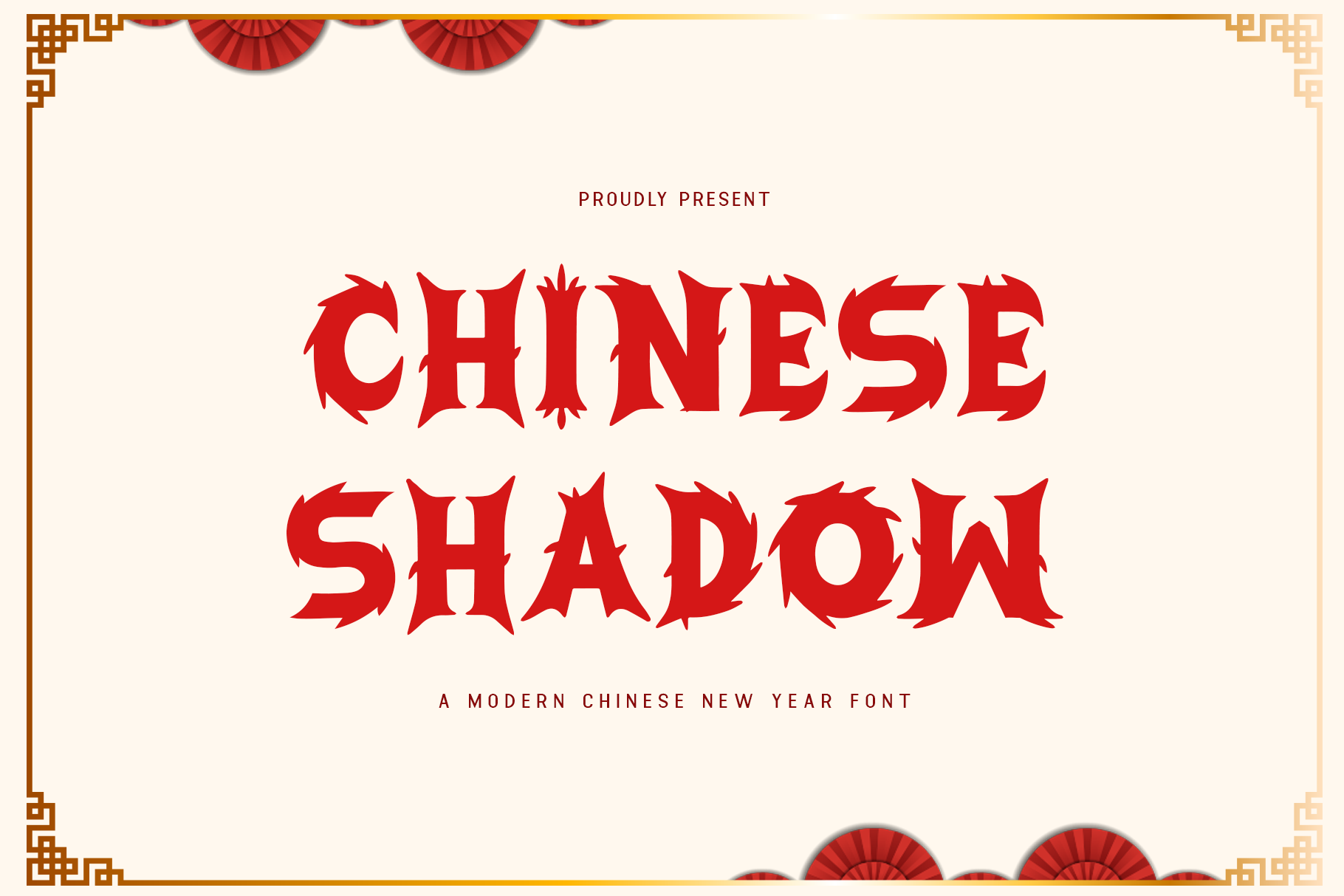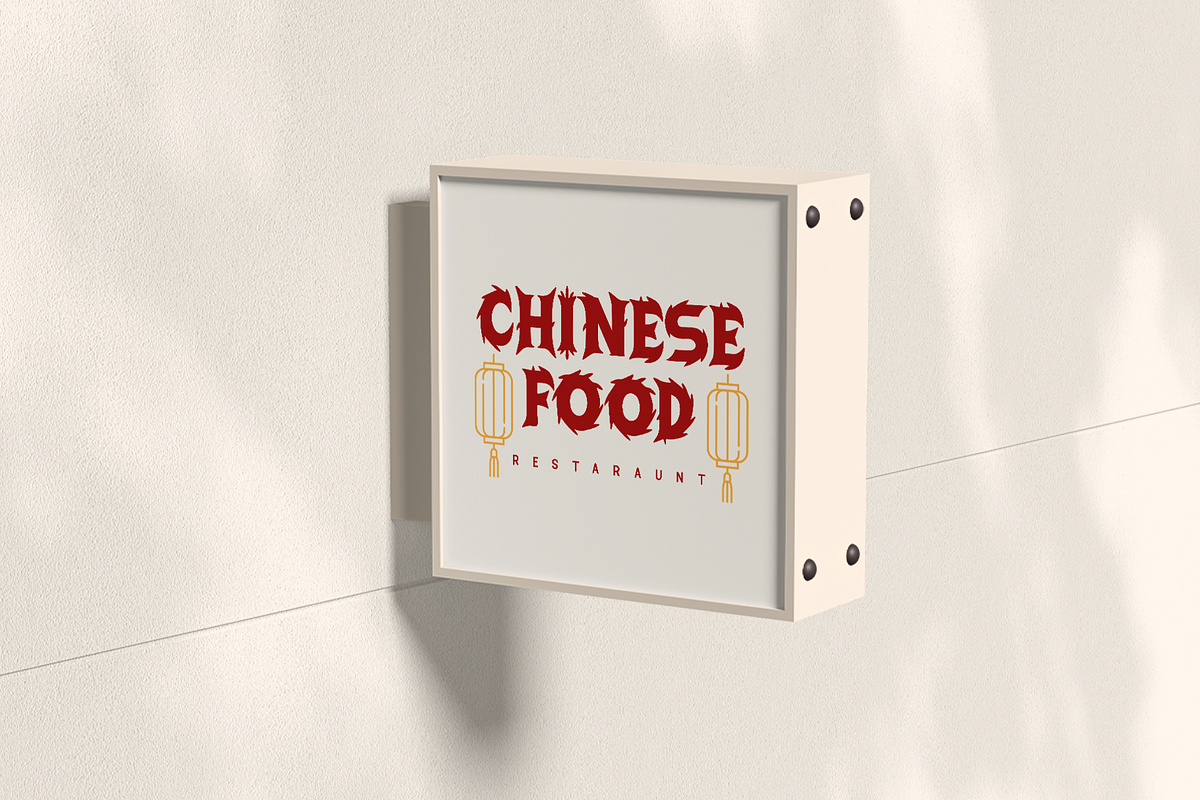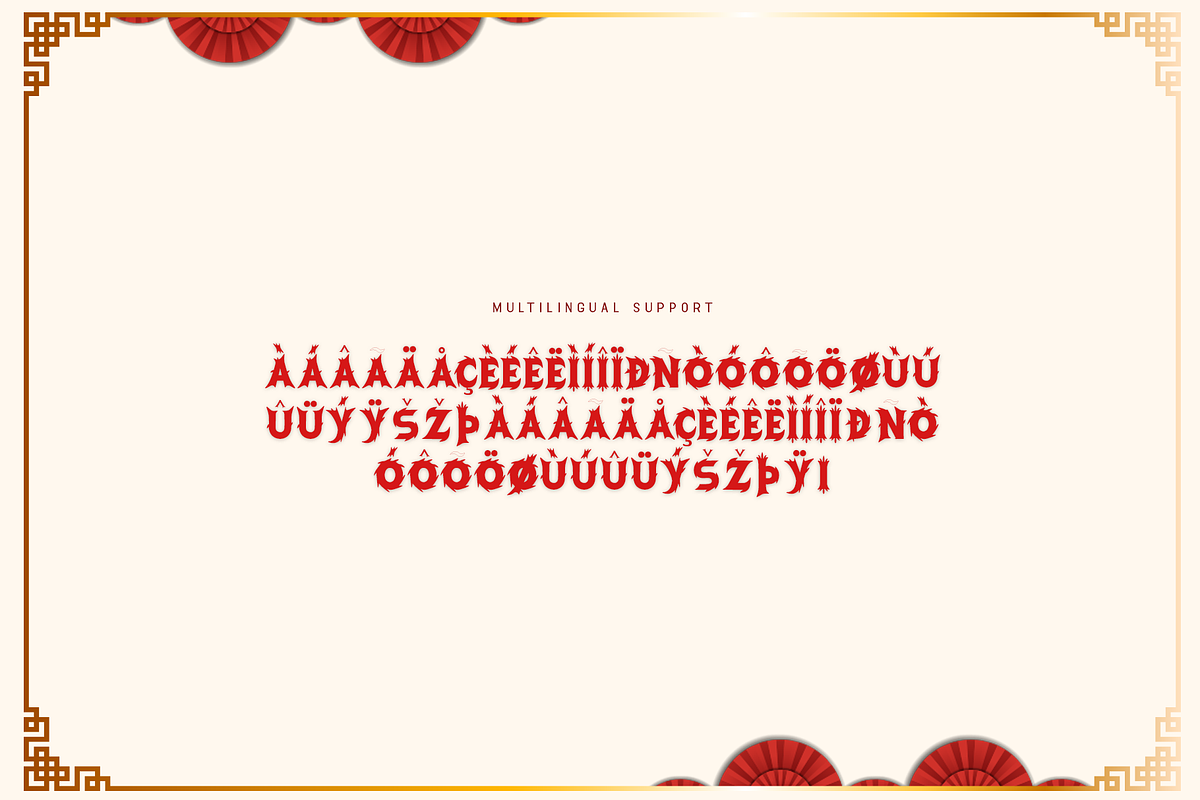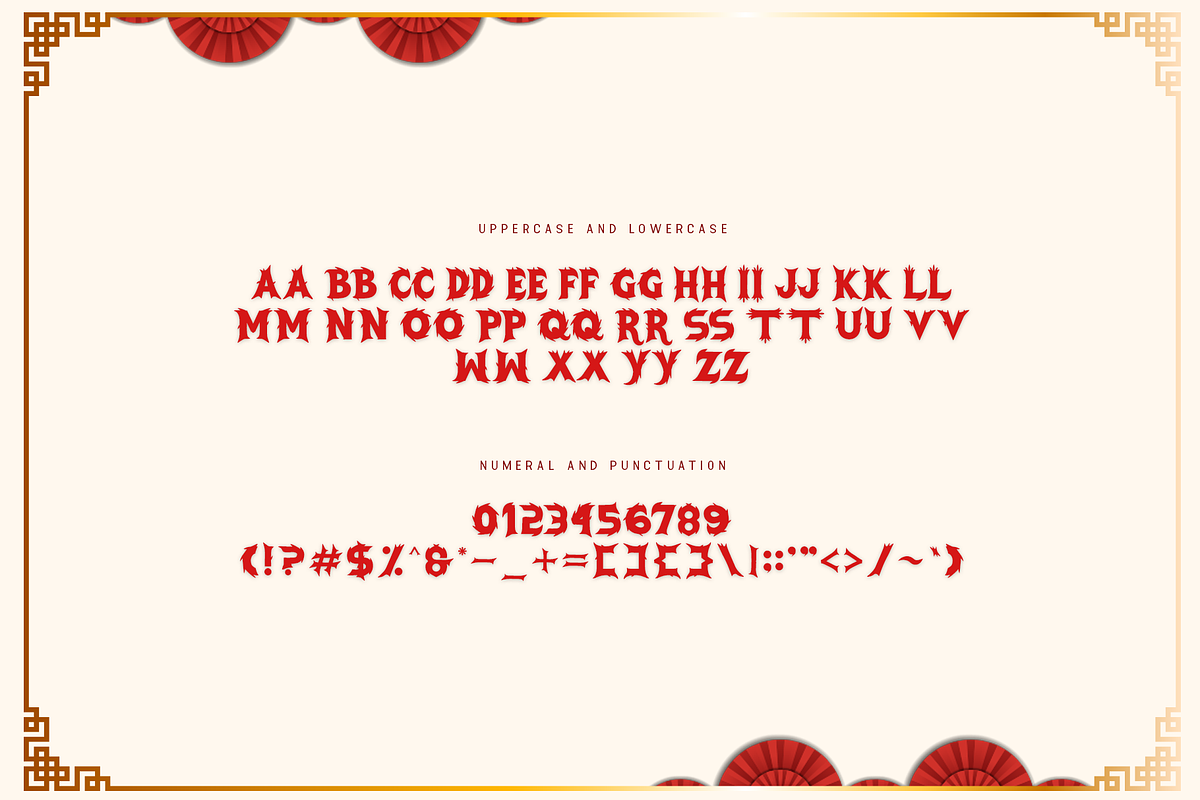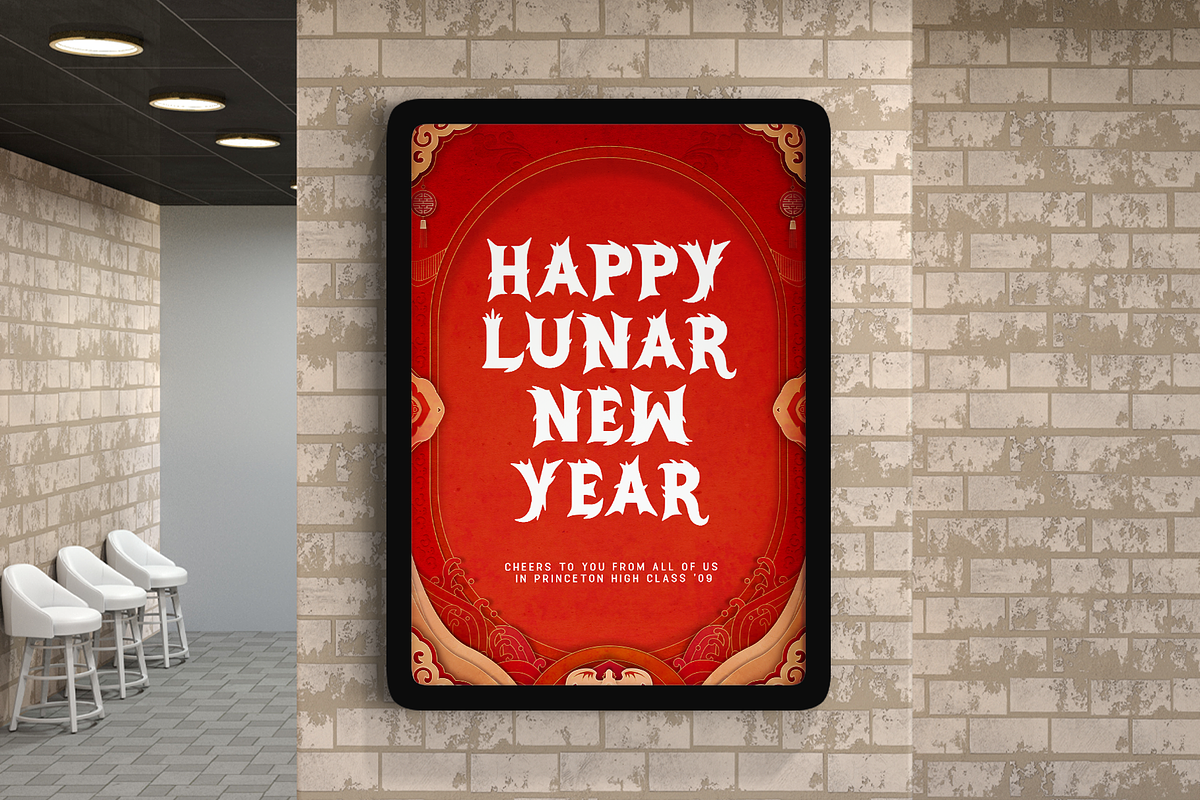
Chinese Shadow - Modern Chinese Font
Chinese Shadow - A Modern Chinese New Year Font
Introducing Chinese Shadow, a modern font that adds a touch of intrigue and sophistication to your Chinese New Year designs. With its subtle yet striking shadows, this typeface brings depth and elegance, making it perfect for festive branding, invitations, event posters, and more.
The shadowed design gives Chinese Shadow a mysterious and bold aesthetic, while still maintaining cultural relevance for the Lunar New Year. Its graceful curves and strong lines make it ideal for creating designs that stand out with both elegance and excitement.
Chinese Shadow is the perfect font for those seeking to add a layered, visually captivating touch to their Chinese New Year creations.